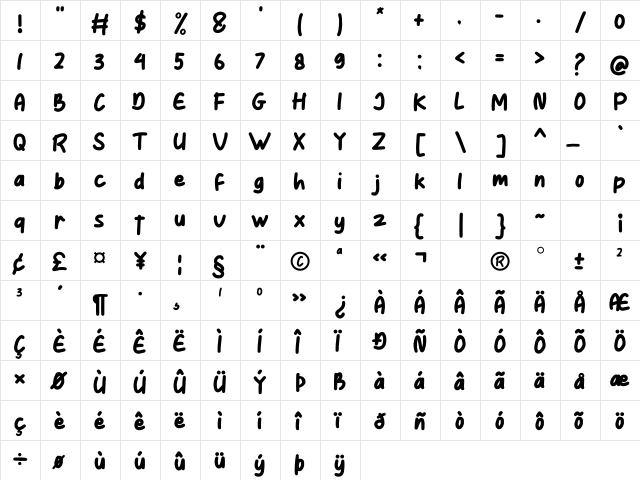
Punkiss Regular
Design Context for Punkiss Typeface
Punkiss is a composed and adaptable typeface that performs quietly and consistently across a wide range of design contexts.
Pro Tip: Use Punkiss in both headline and body roles to test its range before committing to a single application.